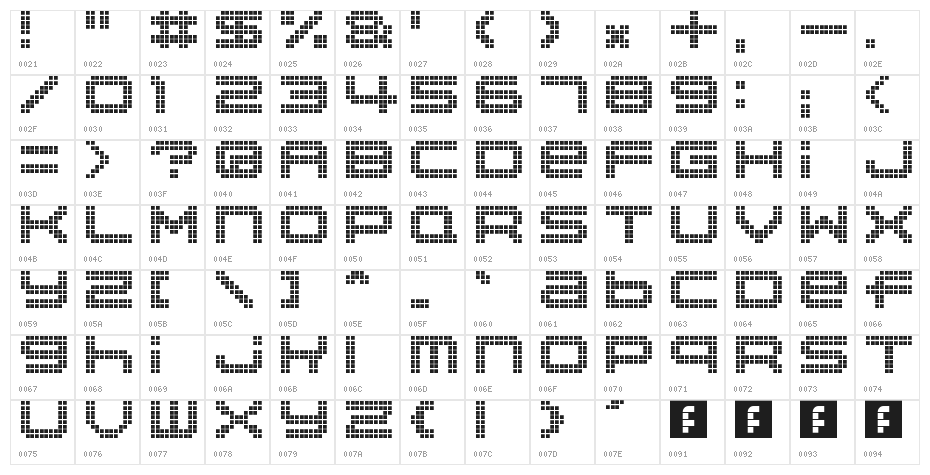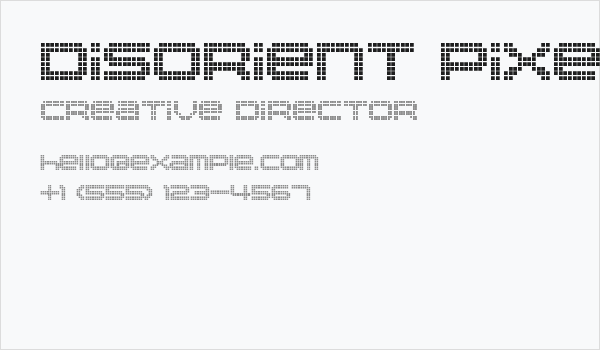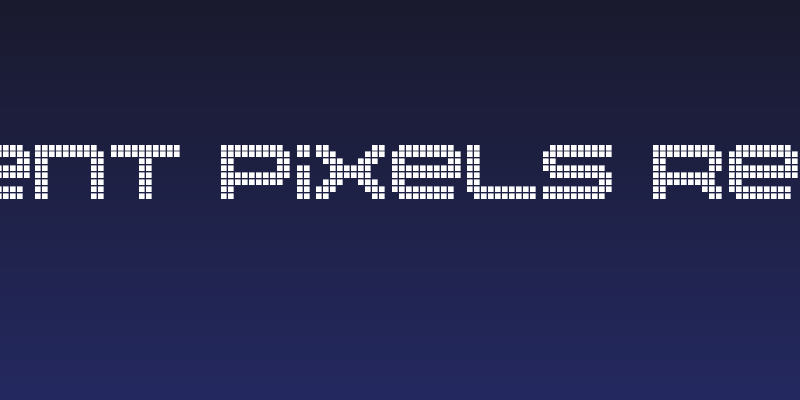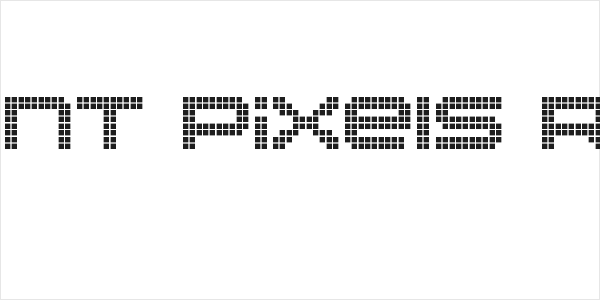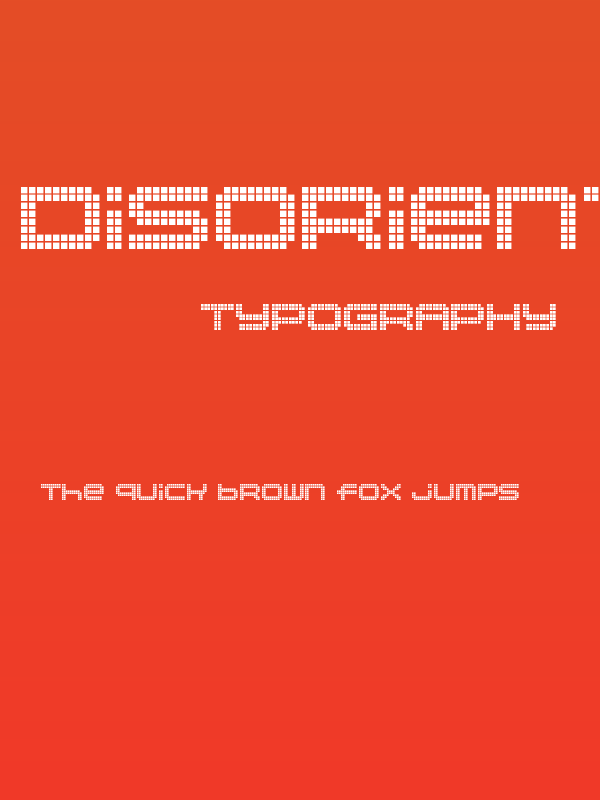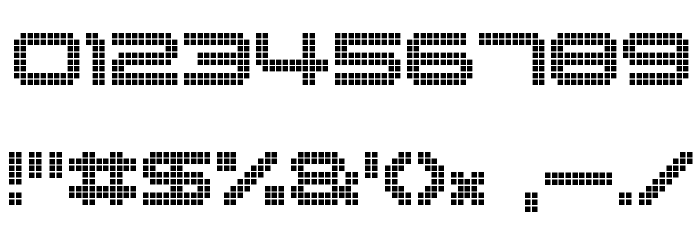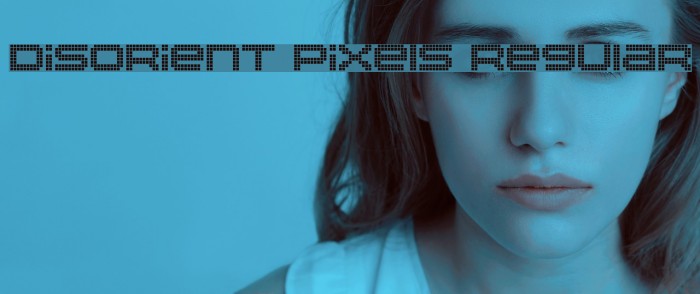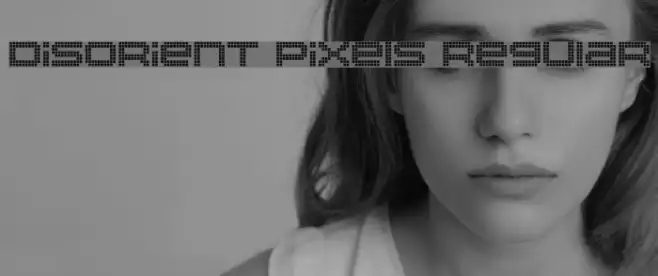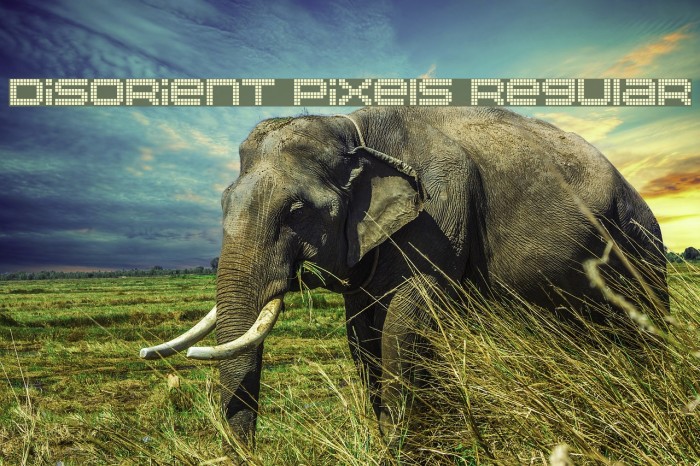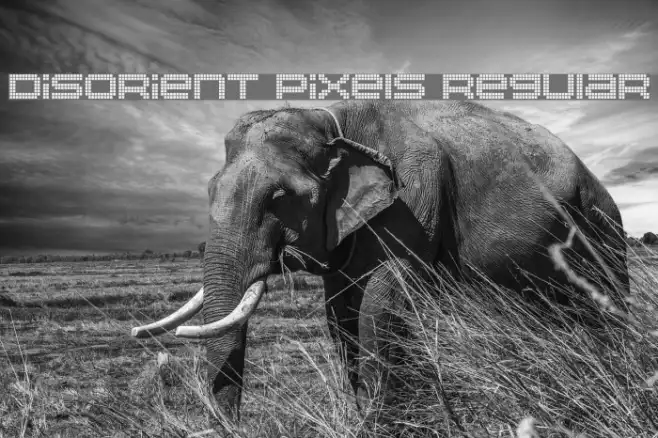
Disorient Pixels Regular Font
Disorient Pixels Regular Description
This font features a unique pixelated design, where each character is composed of a grid of small squares, giving it a digital and retro appearance. The characters are evenly spaced and maintain a consistent height, creating a uniform look across both uppercase and lowercase letters. The numbers and special characters follow the same pixelated style, ensuring a cohesive visual theme. This font is reminiscent of early digital displays and video game graphics, making it ideal for projects that aim to evoke a sense of nostalgia or a tech-oriented aesthetic.